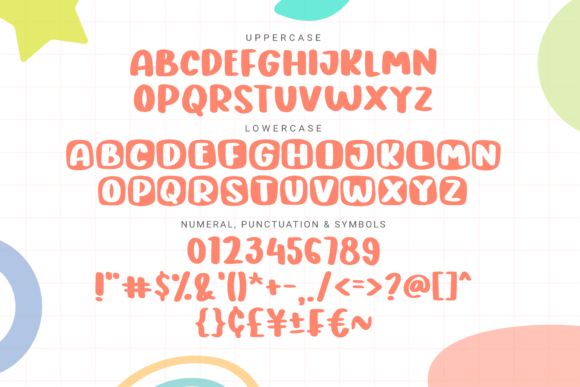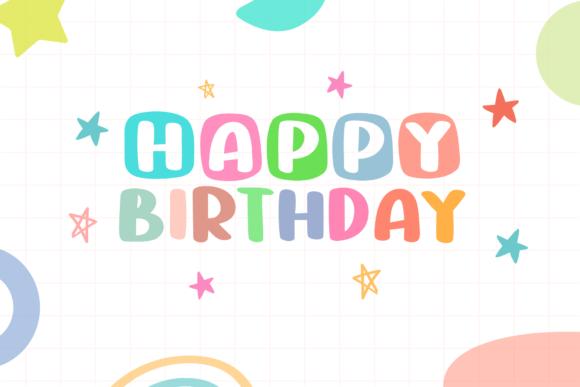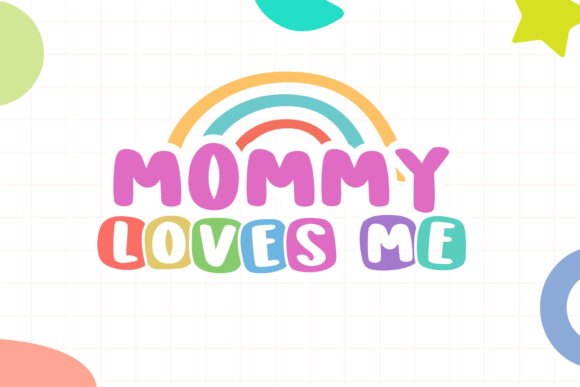
Introduction to Happy Block Font
Do you remember the feeling of excitement when you were a kid, rummaging through your art supplies, eager to start your next creative project? The thrill of combining colors, textures, and shapes to bring your imagination to life is a feeling that never truly fades. As a designer, you understand the importance of choosing the right tools to bring your vision to life.
For those special projects that call for a playful touch, Happy Block Font is the perfect design resource. This jolly display font is specifically designed to add a dash of whimsy and fun to your creations, making it an instant favorite for classrooms, crafty themes, and any project that requires a touch of magic. With its high-quality design and transparent background, you can rest assured that your creations will stand out from the crowd.
Key Features of Happy Block Font
- High-quality design resource ideal for creative projects, with a unique and playful style.
- Unique block-style design elements for added visual interest in creative projects.
- Perfect for use in digital design, including web design, graphic design, and print materials.
Honest Review: Happy Block Font
I recently had the chance to work with the Happy Block Font, and I must say it’s a fantastic addition to any creative project. The font is super versatile and can be easily paired with other design elements to create a unique look.
- ✨ What works well: The font is high quality and has a very transparent background, making it easy to work with.
- ✨ What works well: The font is available in various styles, making it easy to find the perfect one for your design resource.
However, I did notice a few limitations. The font is not suitable for small text, as it can be difficult to read.
- ⚠️ Limitations: The font is not ideal for body text, as it can be quite chunky.
- ⚠️ Limitations: The font is not available in as many languages as I would like, which can be a limitation for designers working on international projects.
Overall, I’m really impressed with the Happy Block Font. It’s a great addition to any design resource and is perfect for adding a bit of personality to your creative project. Just be mindful of the limitations, and you’ll be golden!
Happy Block Font
Design Tips
When using Happy Block Font, keep the following tips in mind: use a transparent background to create a clean and minimalist look, and experiment with different font sizes and colors to add visual interest. You can also use the font in conjunction with other design elements, such as graphics and images, to create a unique and engaging visual effect.
Happy Block Font is a versatile design resource that can be used in a variety of creative projects, including digital graphics, presentations, and documents. It’s a great choice for designers who want to create high-quality designs with a transparent background and a unique, eye-catching visual effect.